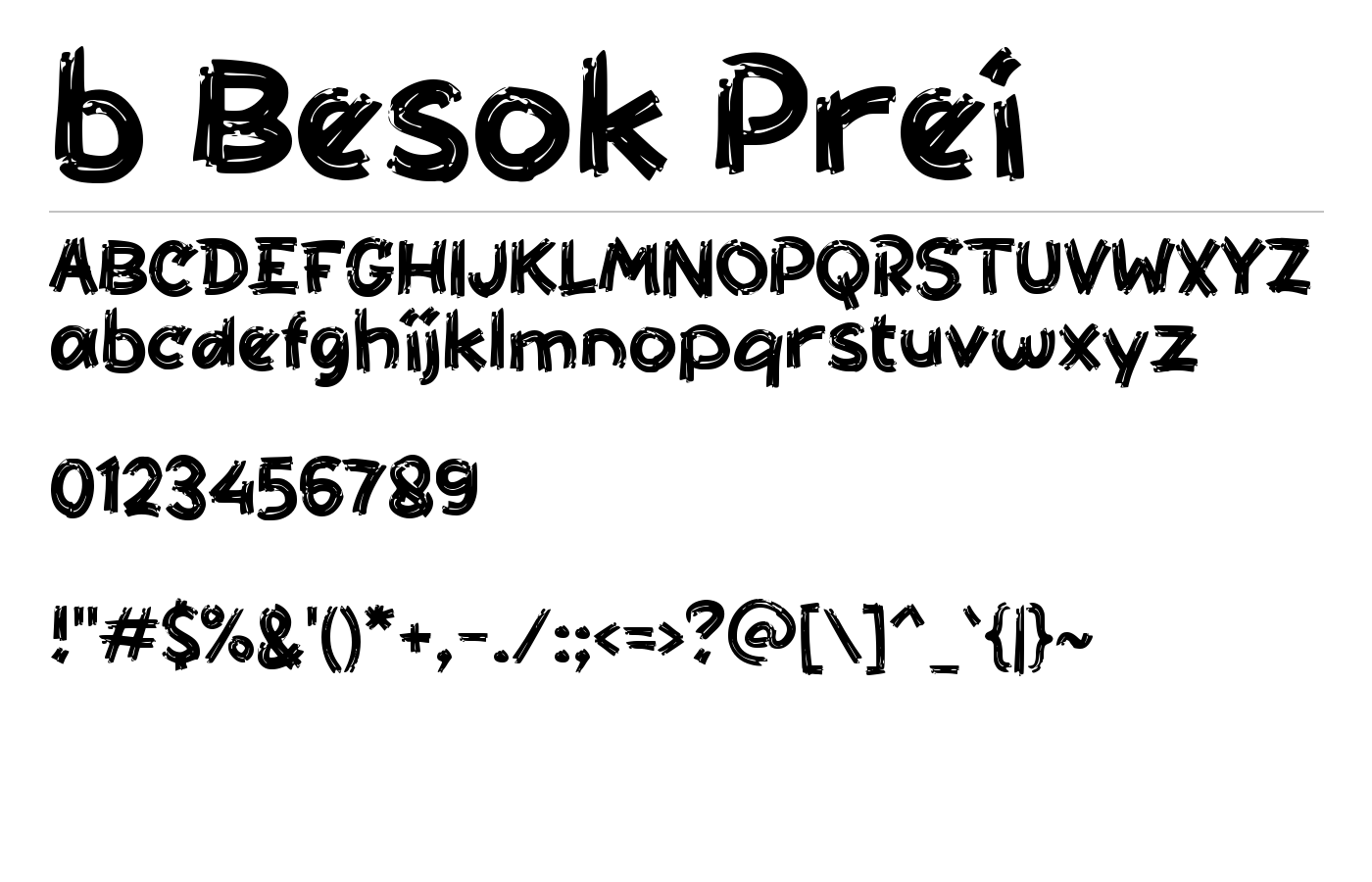
b Besok Prei is a bold, playful sans serif font with a hand-drawn, distressed texture that gives it a lively, casual feel. Its uneven strokes and rough edges make it perfect for creative, informal designs such as posters, children’s books, and quirky branding that want to stand out with personality. This font works best in headlines or display text where its unique character can grab attention and convey a fun, energetic vibe.
b Besok Prei Font